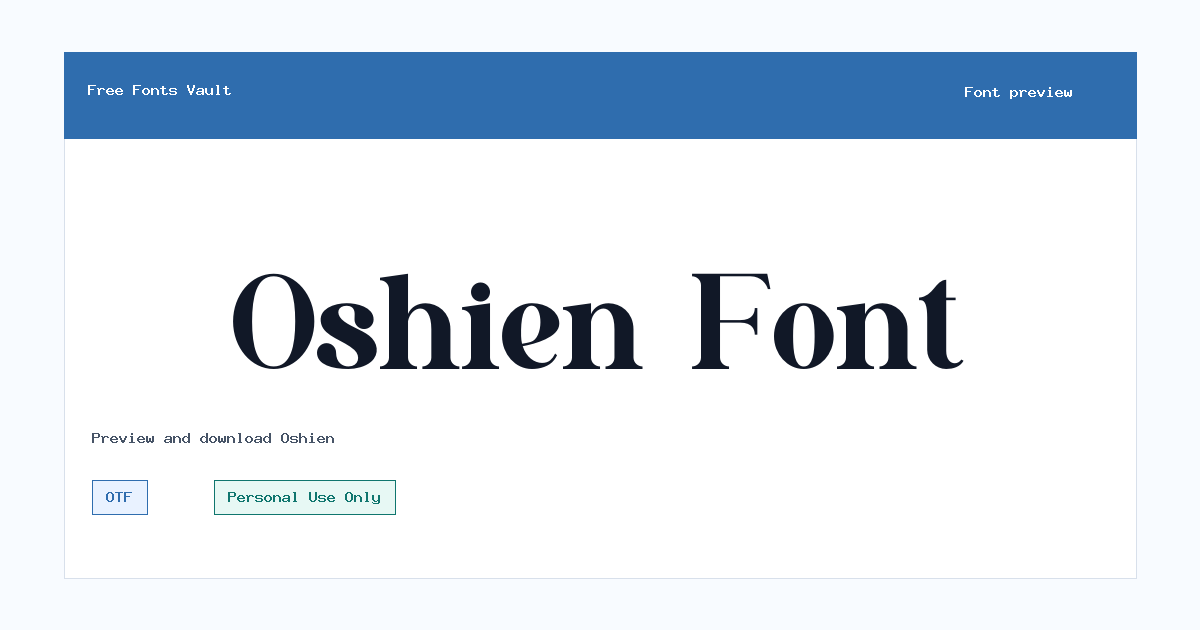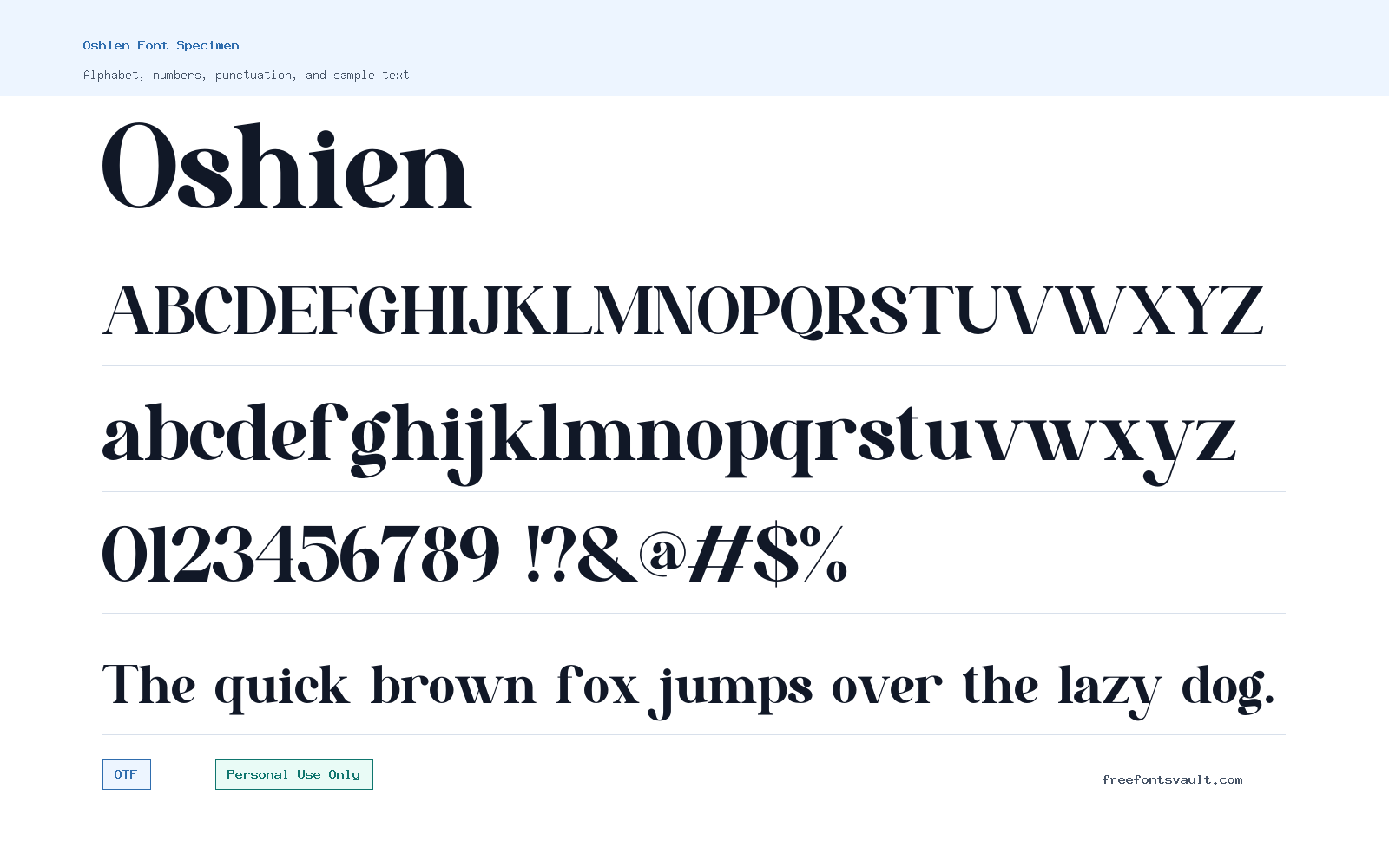
Oshien
Oshien is a serif font with one regular OTF style, made for personal-use projects where a refined display look is more important than long-form reading.
Oshien works best when you need a serif face for short, visible text. Use the preview tool to test names, titles, quotes, invitations, logos for drafts, social graphics, or decorative headings before downloading. Because only the regular style is listed, it is better suited to simple layouts than full brand systems that need matching bold, italic, or extended weights.
For readability, start by testing Oshien at headline and subheading sizes. Serif display fonts can lose clarity when used too small, especially in dense paragraphs, menus, captions, or mobile layouts. Try your real text in the preview, check spacing between letters, and compare uppercase, lowercase, numbers, and punctuation before using it in a final design. The download file is in OTF format, which is commonly supported by desktop design apps and many font managers.
• Useful for short display text, previews, and personal creative projects
• Personal invitations, quotes, posters, and title graphics
• Draft logo concepts, moodboards, social posts, and editorial-style headings
Does Oshien include bold or italic styles?
Only one regular style is listed. If you need bold, italic, or multiple weights, you may need a different family or a licensed version with more styles.
What should I test before using Oshien?
Preview your actual text, especially uppercase words, numbers, punctuation, and small sizes. Check spacing and readability before using it in a finished personal project.